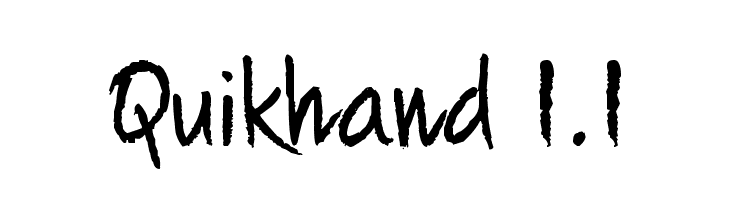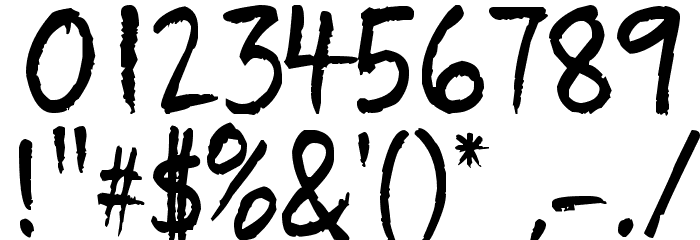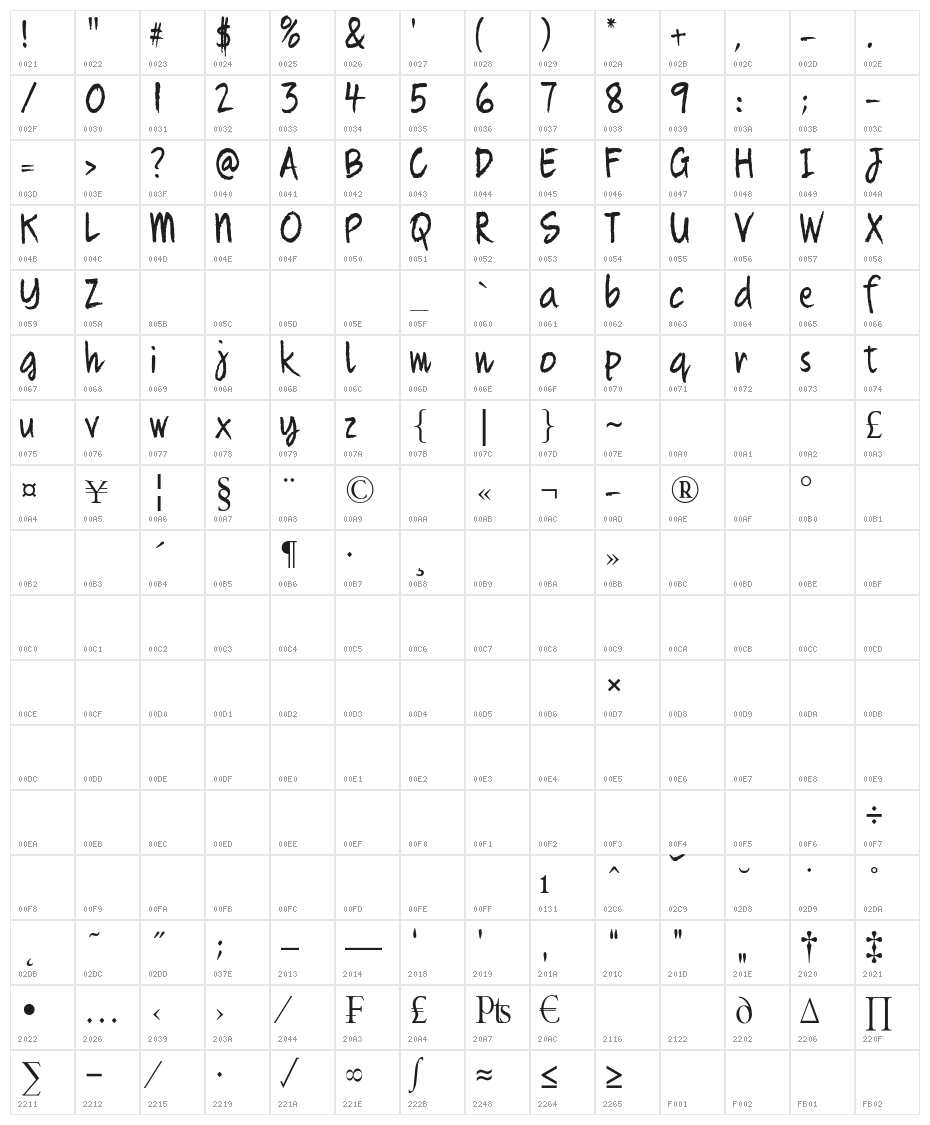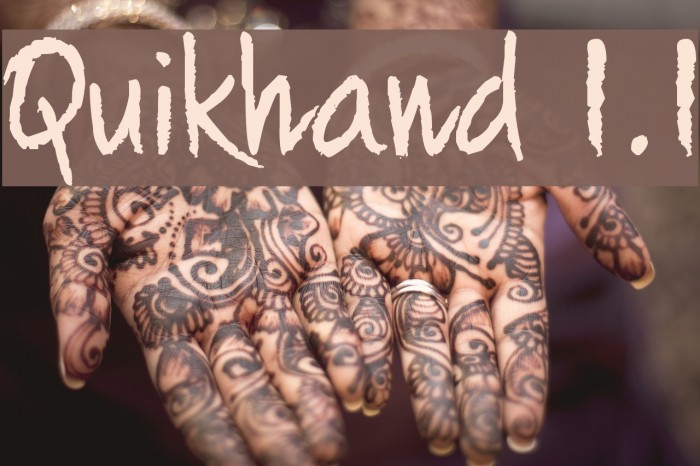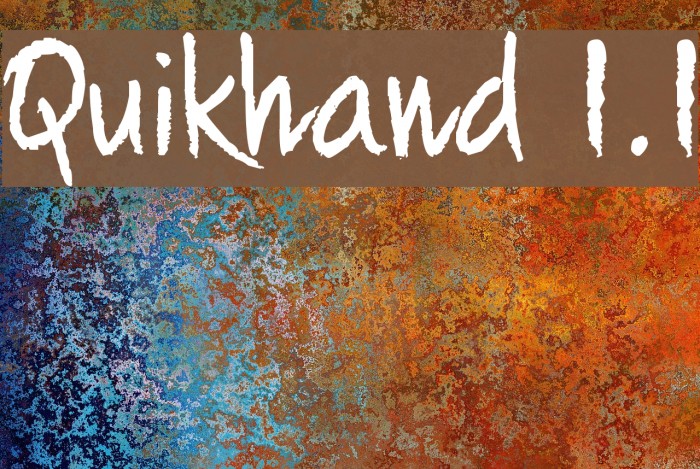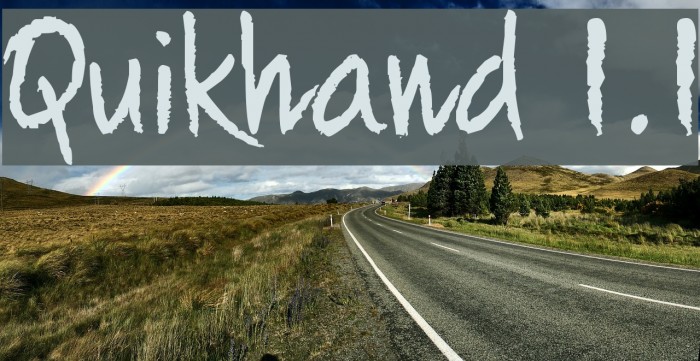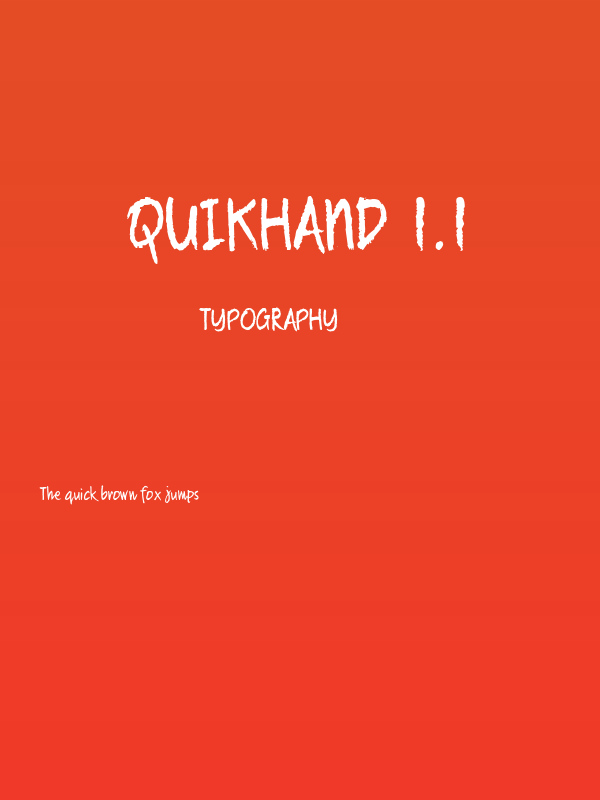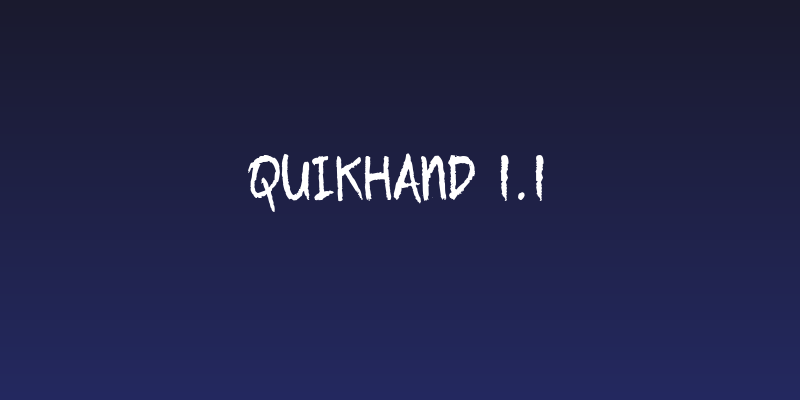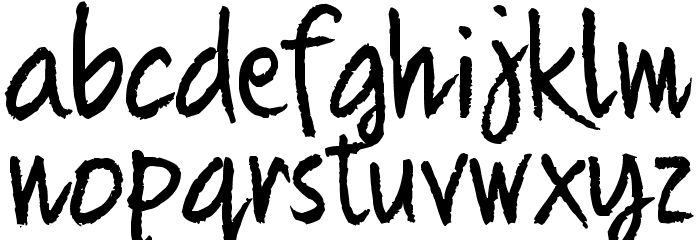
Quikhand 1.1 Font
Quikhand 1.1 Description
This font features a handwritten style with a casual and informal appearance. The strokes are uneven, mimicking the natural flow of handwriting with a brush or marker. The characters are slightly slanted, adding to the dynamic and energetic feel. The uppercase and lowercase letters are distinct, with the uppercase being more bold and pronounced. Numbers and special characters maintain the same playful and spontaneous aesthetic, making the font versatile for creative projects.
| Proposed Projects | Ideal for greeting cards, invitations, personal branding, and creative posters. |